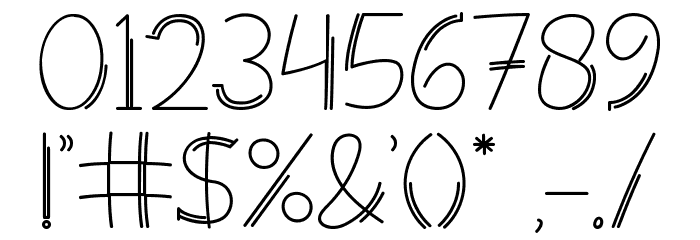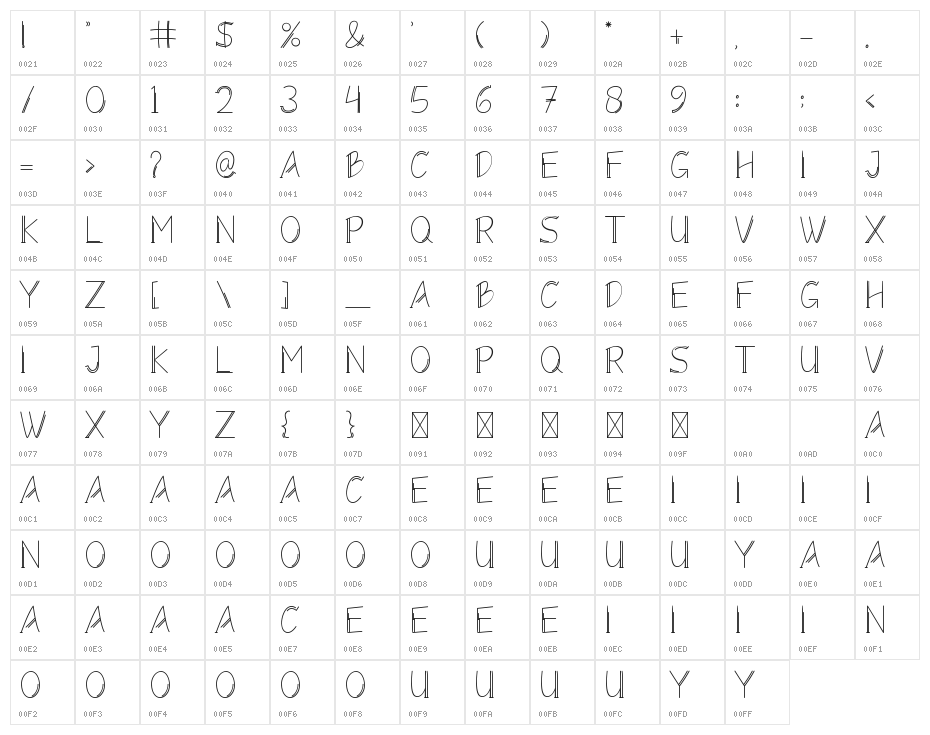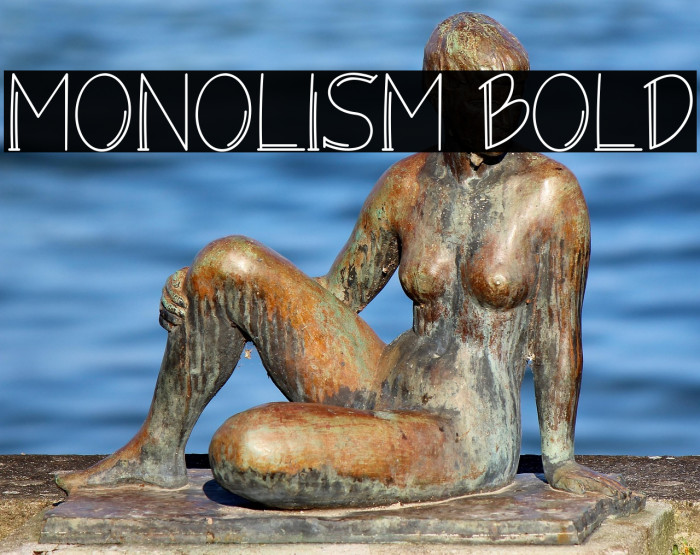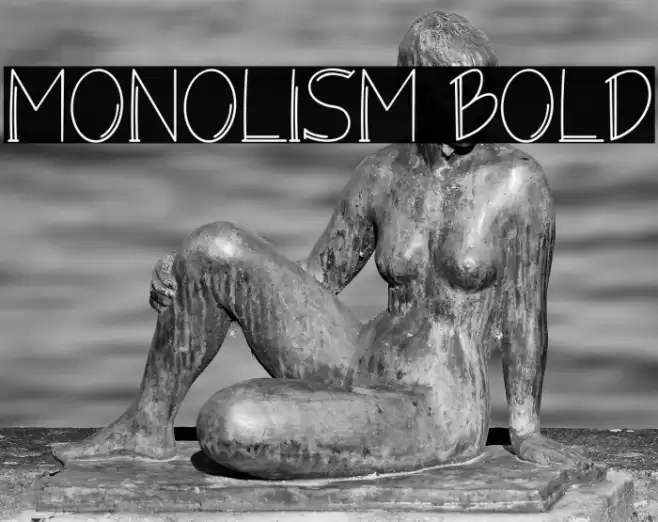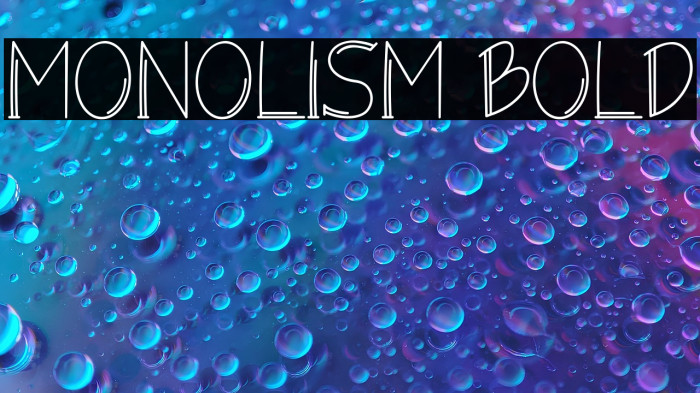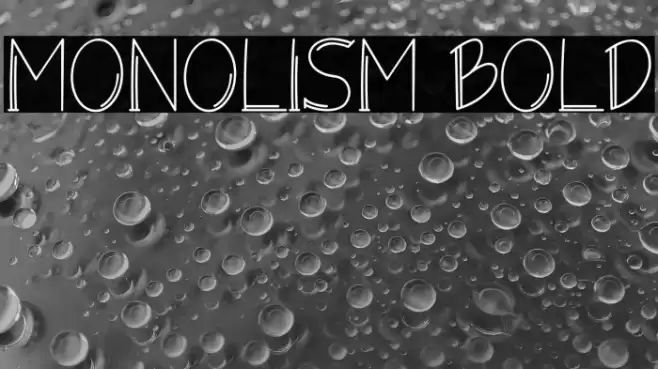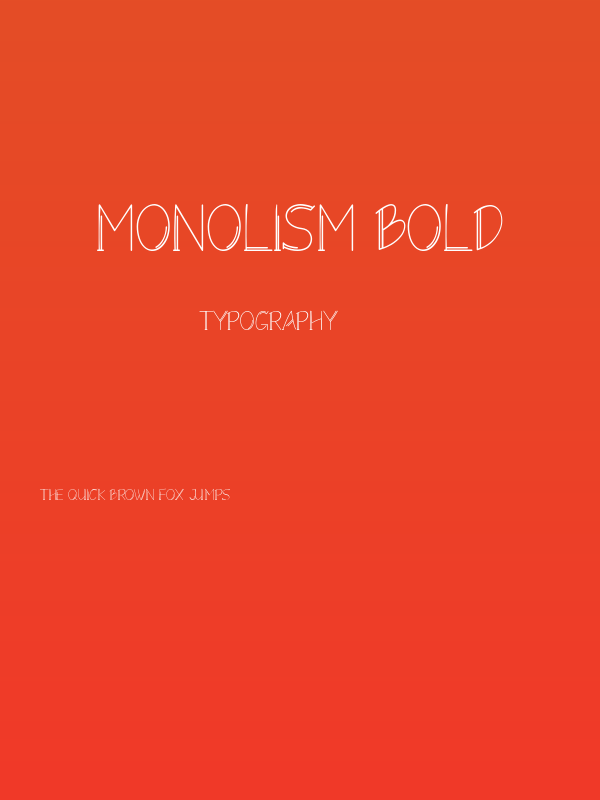
Monolism Bold Font
Monolism Bold Description
This font features a unique, hand-drawn style with a playful and artistic flair. Each character is outlined with a double line, giving it a distinctive and bold appearance. The letters are slightly slanted, adding a dynamic and energetic feel. The uppercase and lowercase letters maintain a consistent style, with rounded edges and a whimsical touch. The numbers and special characters follow the same design, ensuring uniformity across all elements. This font is perfect for projects that require a creative and informal look.
| Proposed Projects | Ideal for children's books, creative posters, playful branding, and artistic invitations. |